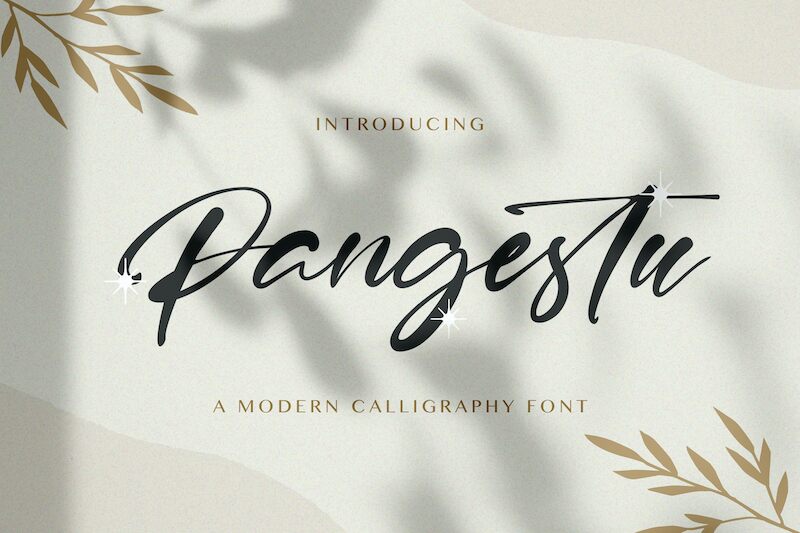
PANGESTU
PANGESTU, the calligraphy semi-light font designed by StringLabs, is a versatile typeface that exudes elegance and sophistication. With its graceful curves and smooth transitions, PANGESTU is perfect for all types of projects that require a touch of flair and finesse. Use it for wedding invitations, greeting cards, book covers, or any other project that demands a refined aesthetic. The semi-light weight ensures legibility while maintaining the delicate strokes characteristic of calligraphy fonts. Add some charm to your designs with PANGESTU – the perfect choice for those looking to make a lasting impression.